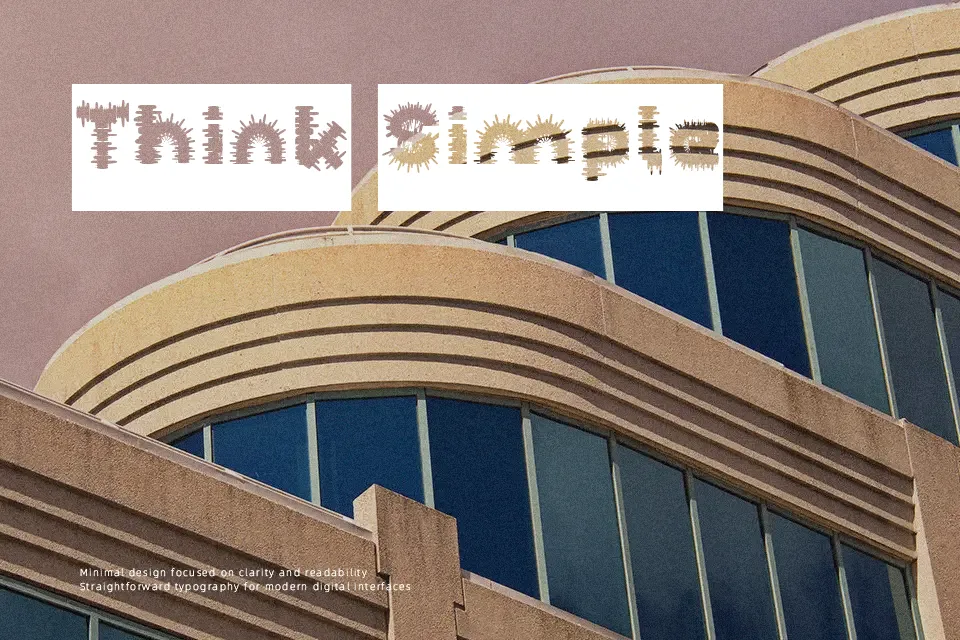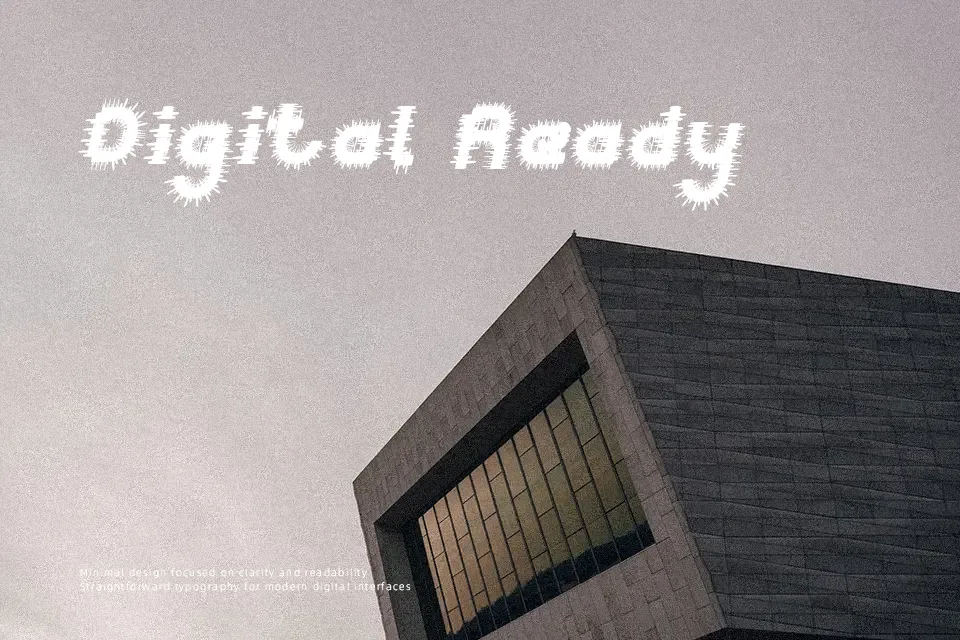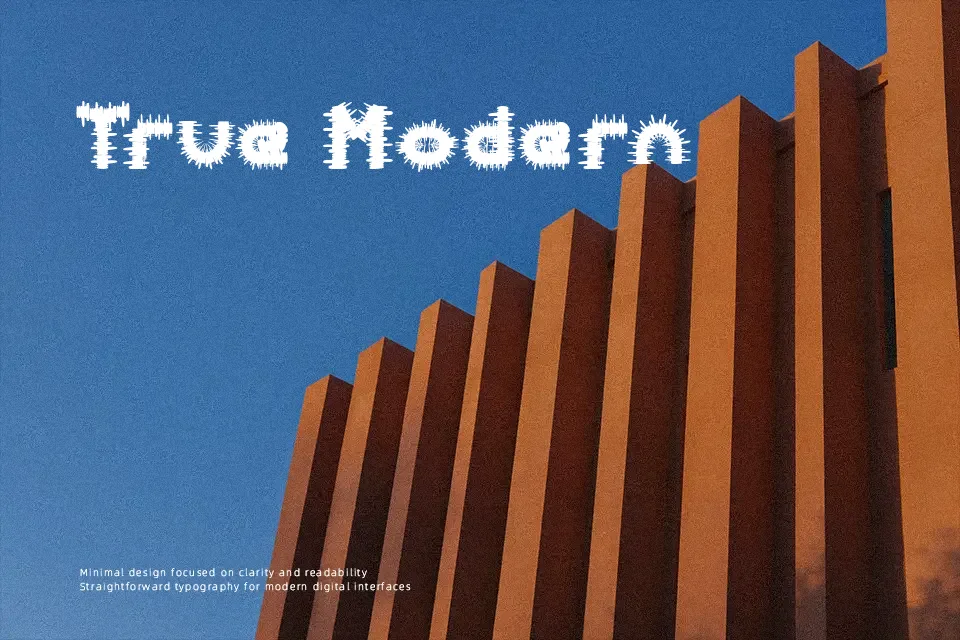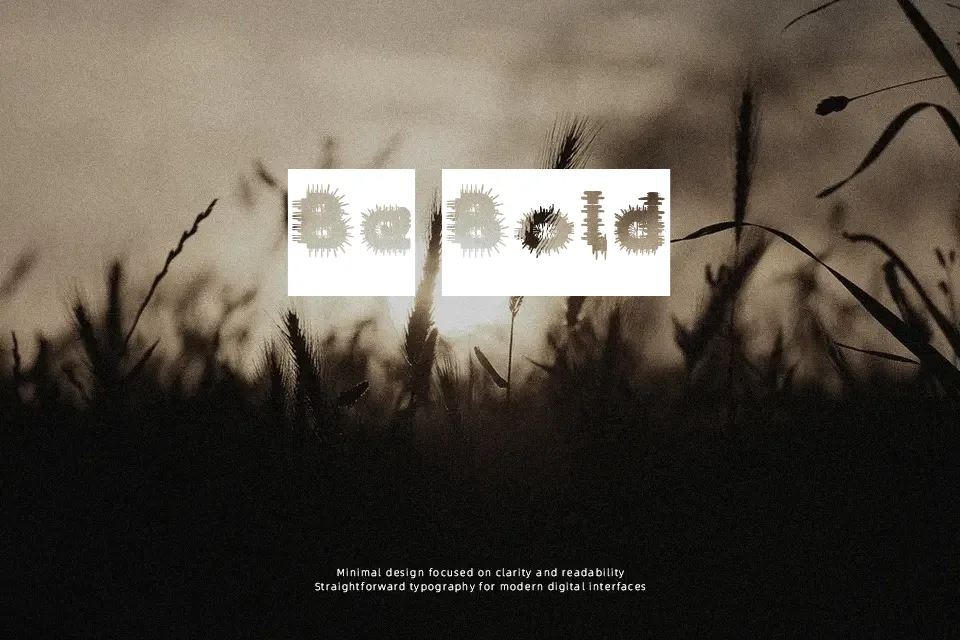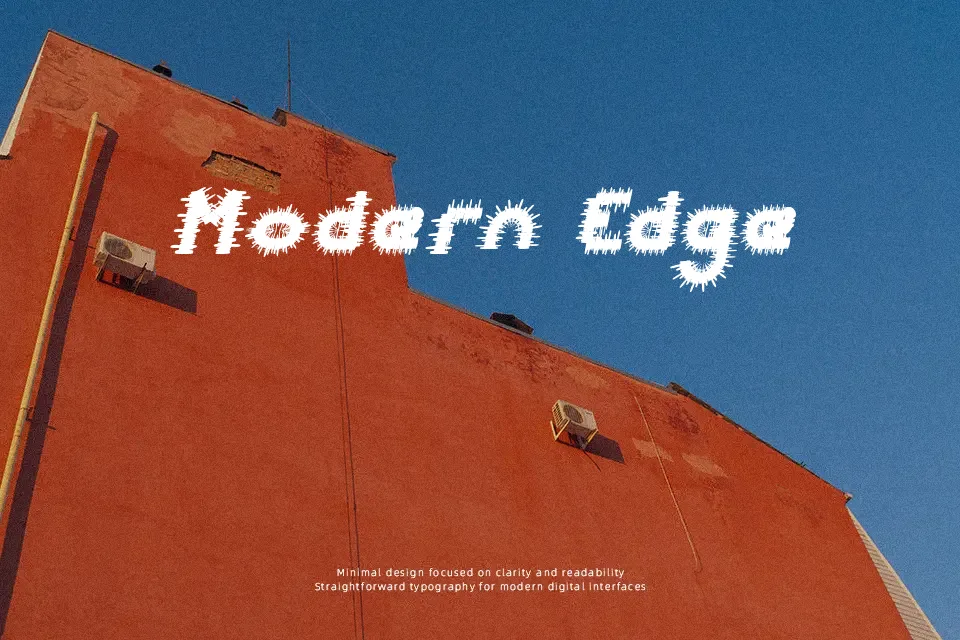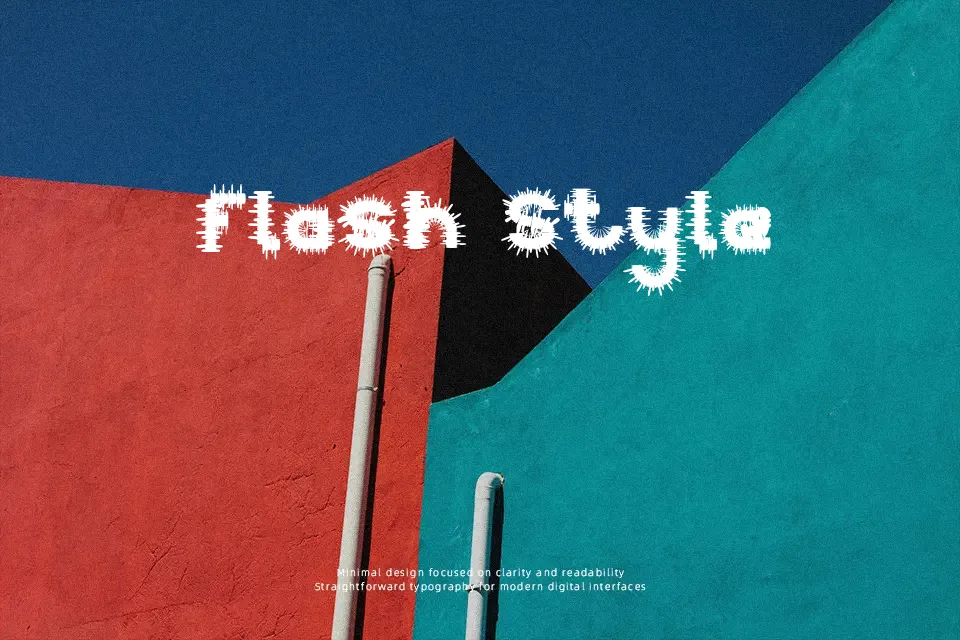
Punk Font
The chaotic structure and irregular strokes of Punk Font immediately establish a raw, rebellious aesthetic. This distorted display typeface features jagged edges, unpredictable baselines, and inconsistent letter widths that heavily emphasize visual aggression over traditional typographic balance. The heavy texture and distressed forms ensure that large headlines command attention, capturing a genuine grunge or underground music vibe. However, the same erratic detailing that gives the letterforms their unique character severely reduces readability at smaller sizes. The unpredictable spacing and heavy visual noise make this typeface ineffective for continuous reading or dense layouts, requiring designers to use it strictly for high-impact focal points.
underground music posters, edgy streetwear branding, grunge album covers, skateboarding apparel graphics
long paragraph text, corporate financial reports, small interface labels, dense editorial layouts
Perfect for branding, fashion, and music, with a dark and decorative style.